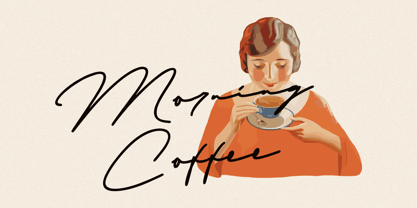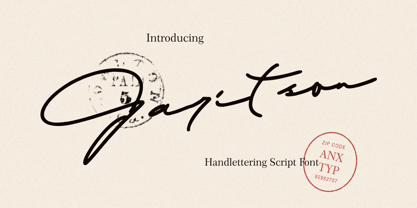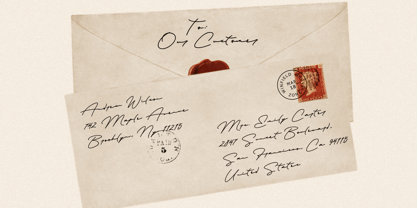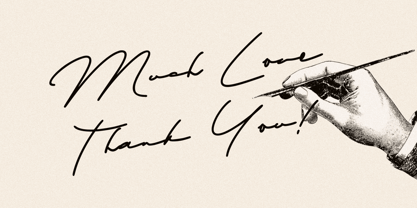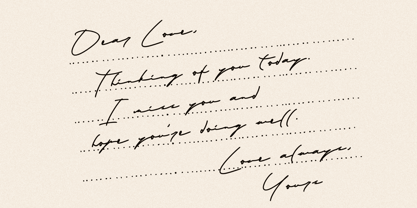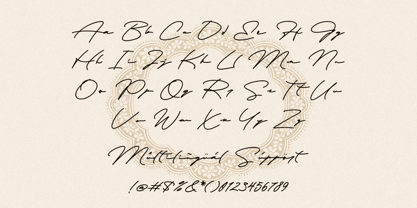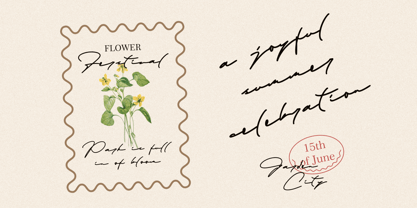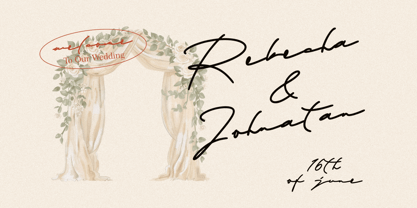
Garitson
by Anxietype Foundry
The Garitson Font Family was designed by Bias Surya Buana, Annas Rifky Anhar and published by Anxietype Foundry. Garitson contains 1 styles. More about this family
Garitson is a charming monoline script font inspired by natural ballpoint handwriting. Its smooth, casual strokes create an authentic handwritten feel that is personal, clean, and effortlessly stylish. This versatile font is perfect for a variety of applications, including branding, signatures, logos, packaging, stationery, letters, greeting cards, invitations, product labels, social media designs, apparel, and other creative projects that require a warm and personal touch. Garitson embodies authentic handwriting with a contemporary monoline style, making it an ideal choice for those seeking to add a unique flair to their designs.
Designers: Bias Surya Buana, Annas Rifky Anhar
Foundry: Anxietype Foundry